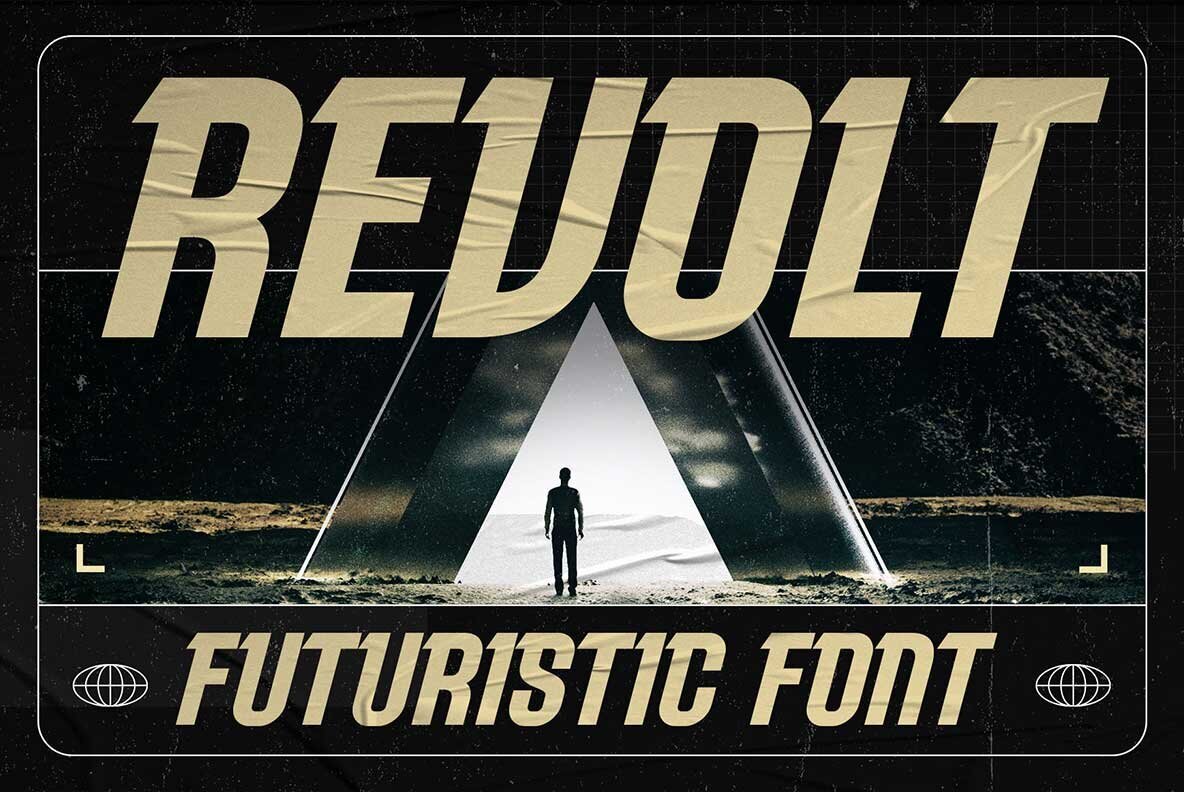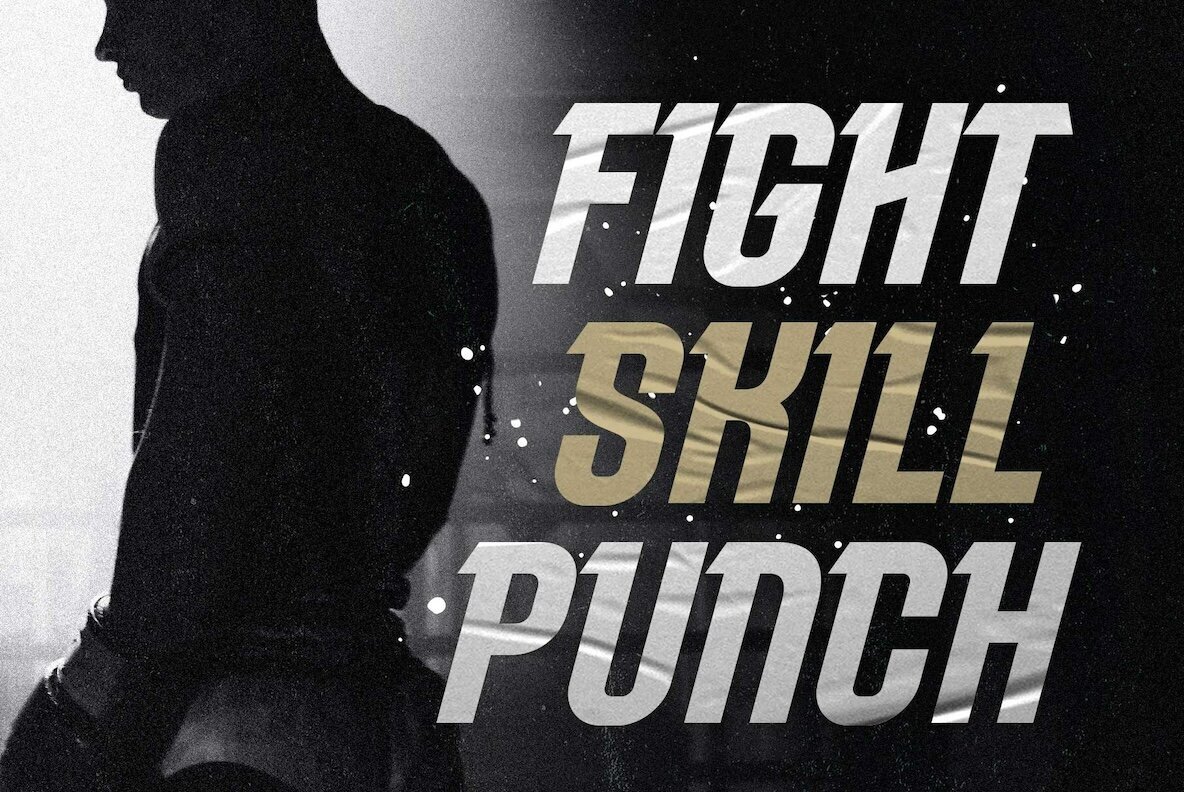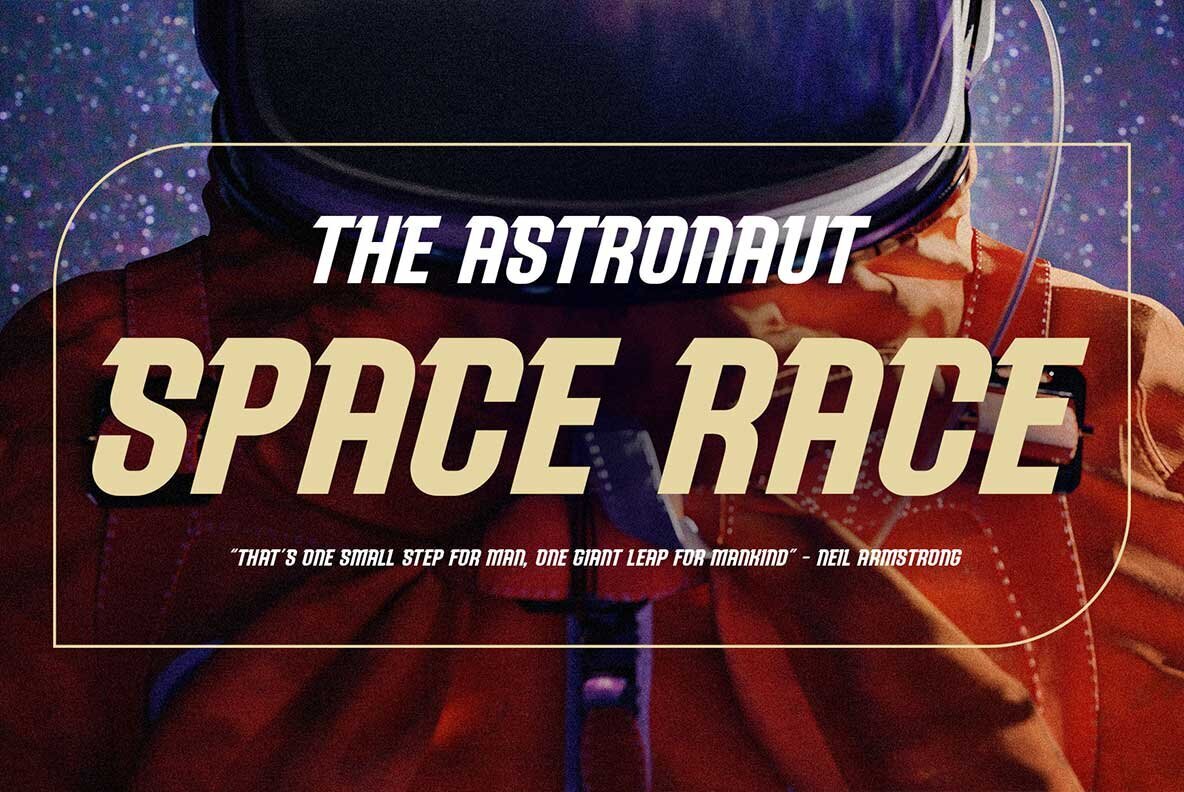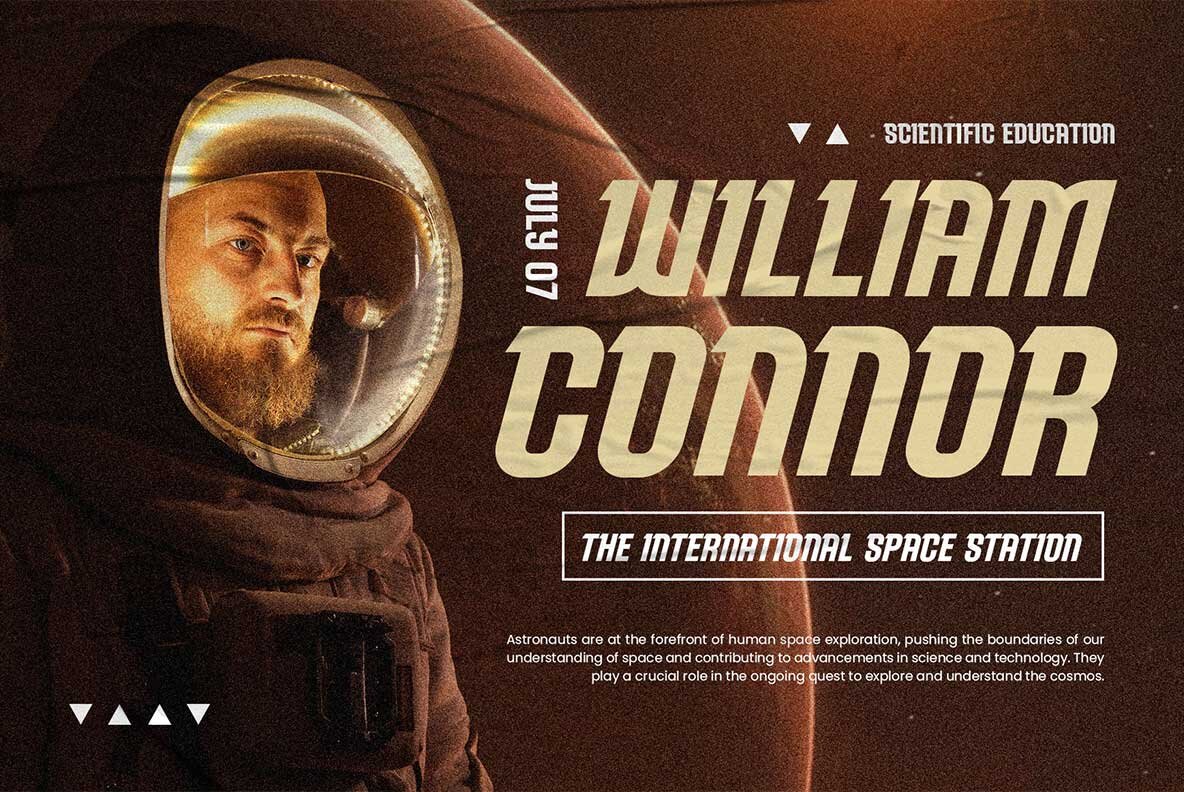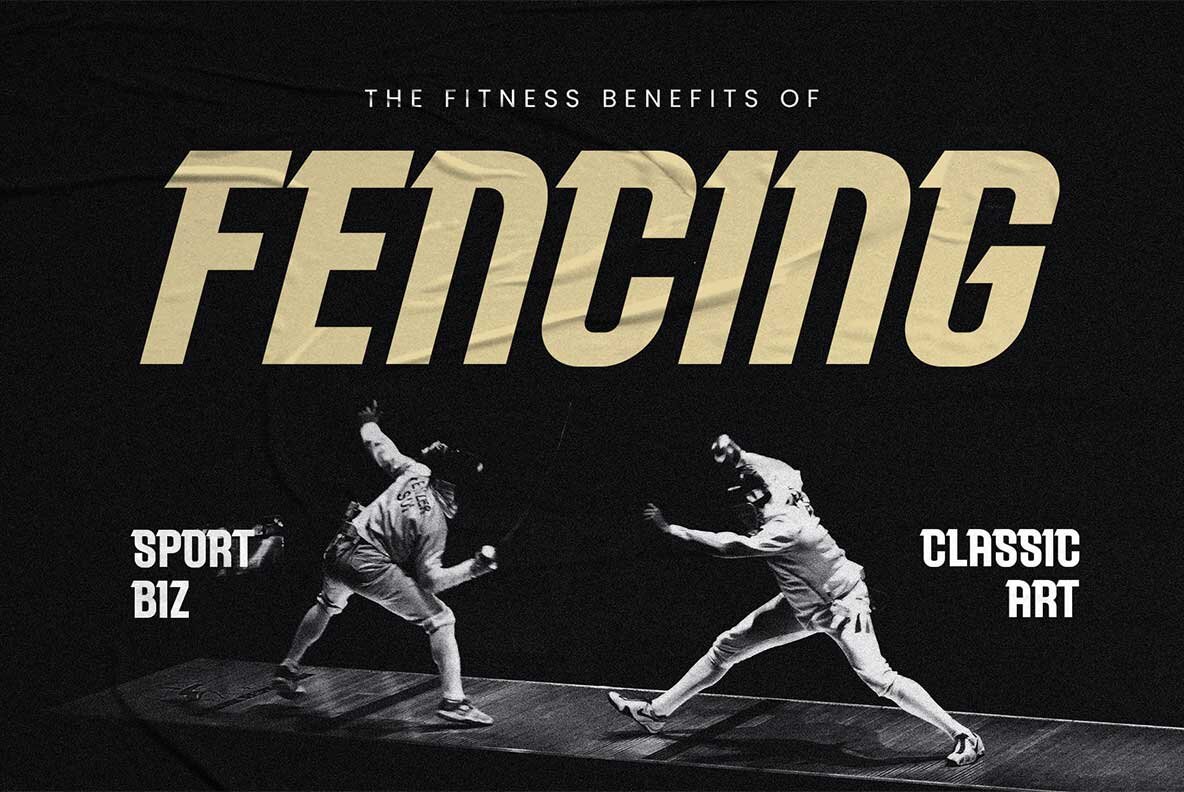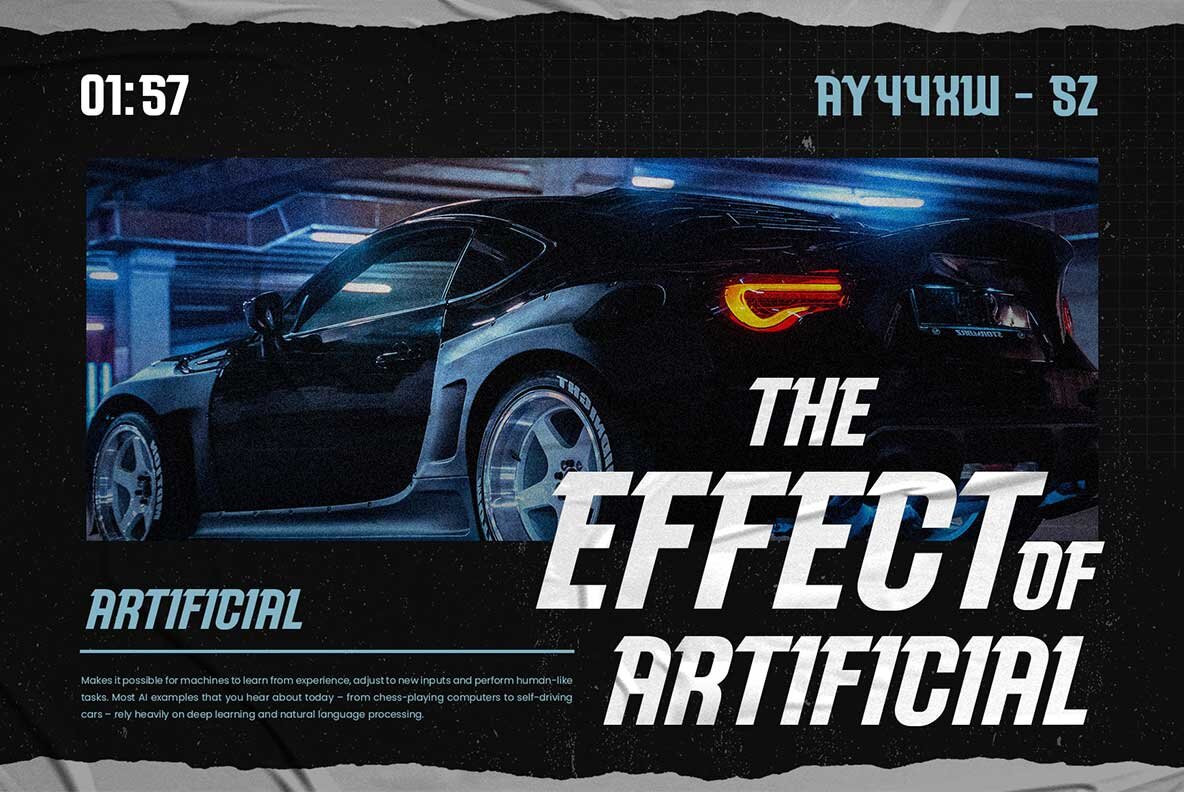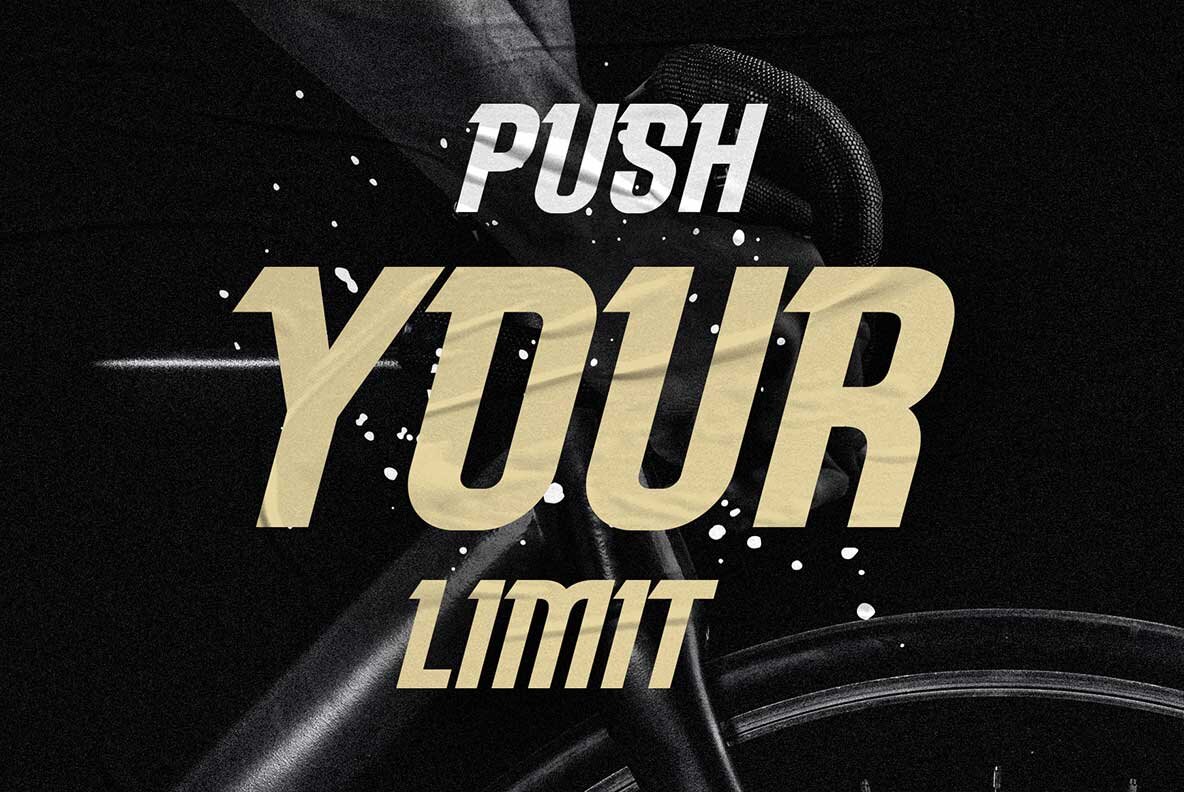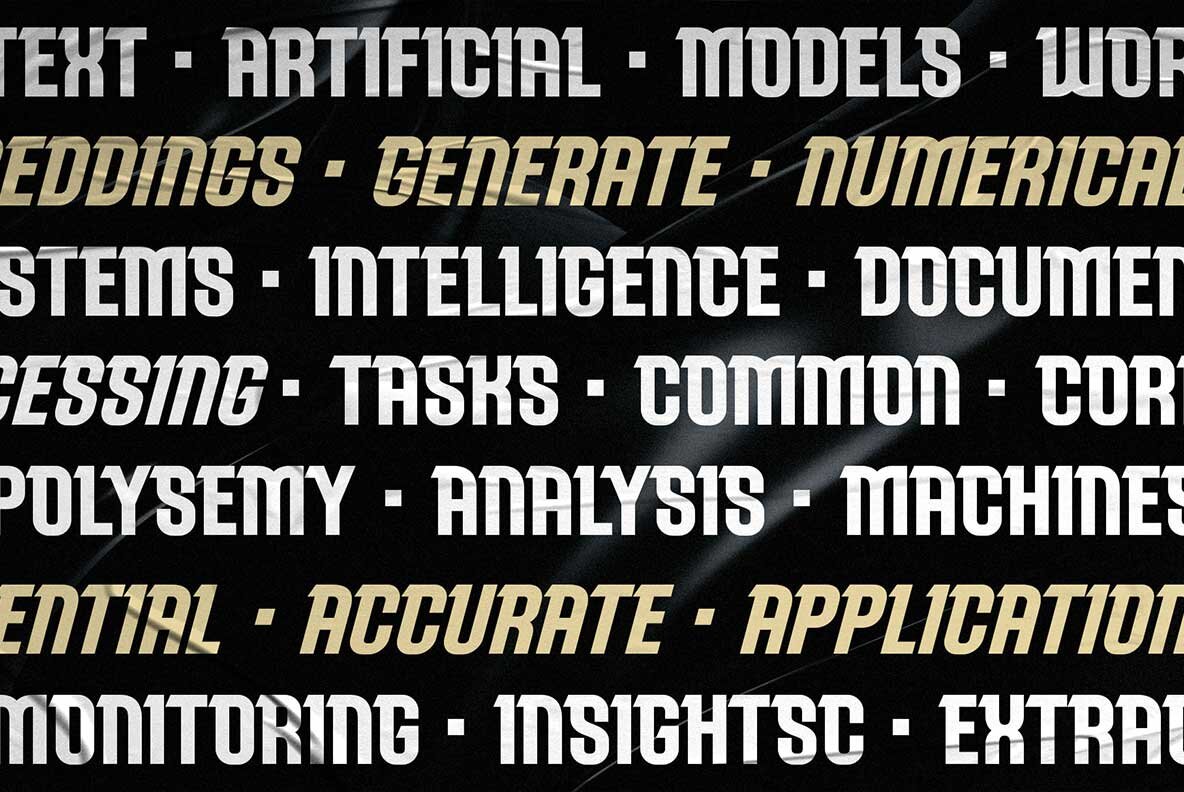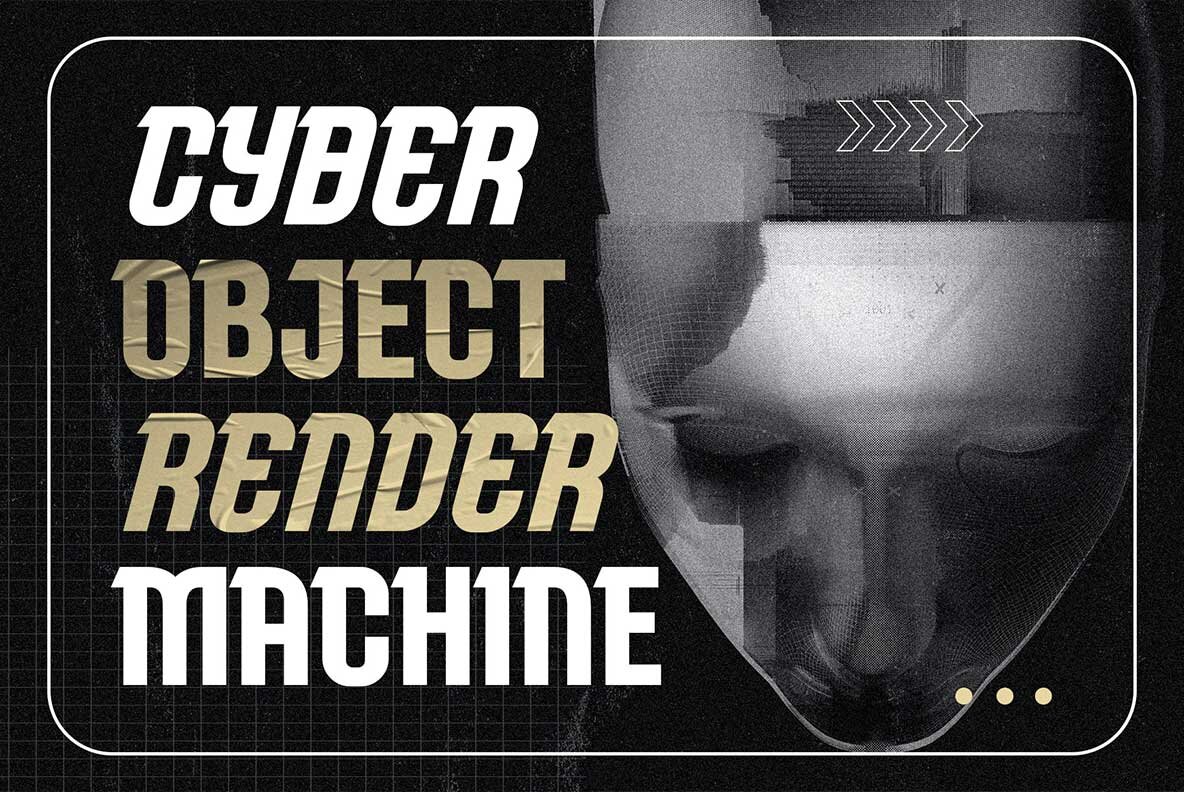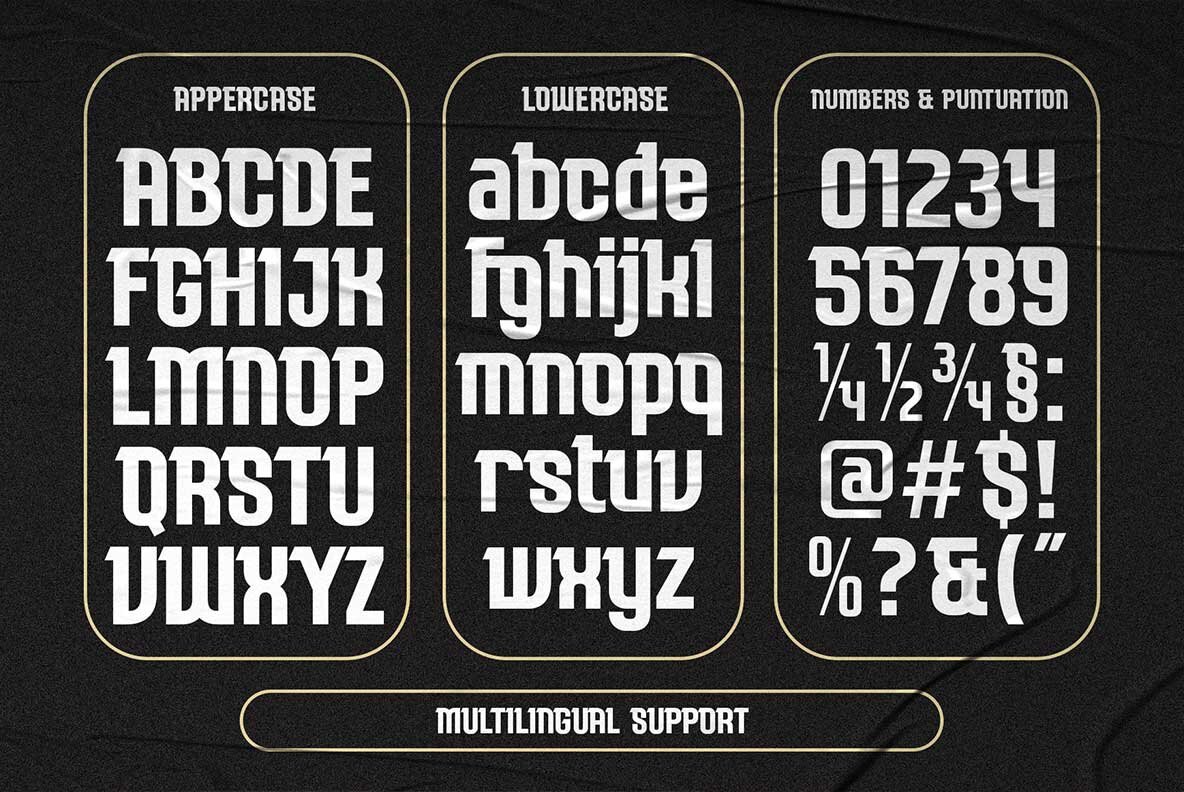
Revolt Font
Revolt stands out with its bold, minimalist design and subtle retro-techno appeal. This versatile font adapts seamlessly to themes like technology, sports, automotive, and sci-fi. Choose between Regular and Slanted styles to suit your creative direction. The crisp lines and geometric shapes add a distinctive impact, making it suitable for both digital and print projects. Revolt delivers strong visual presence for logos, movie titles, posters, flyers, stickers, labels, and emblems. Its thoughtful design ensures clarity and sophistication across a range of applications. This font brings a refined balance between elegance and modern daring, adding character and clarity to your creative projects.Revolt: Futuristic Minimalism Meets Retro-Tech